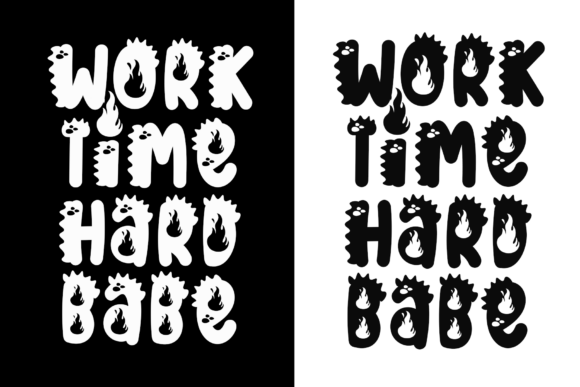
Fire Dragon Font: Unleash the Fiery Intensity in Your Designs
Are you looking for a font that can add a bold, fiery touch to your designs? Look no further than the Fire Dragon font, a blazing decorative font that captures the fierce energy of fire and fantasy. With flames integrated into each character, this font is perfect for gaming titles, event posters, or any design that needs to make a statement.
The Inspiration Behind Fire Dragon Font
The Fire Dragon font is inspired by the mythical creatures of fire and fantasy. The designers aimed to create a font that would evoke the feeling of intense heat and energy, while also being aesthetically pleasing. The result is a font that is both beautiful and bold, with flames dancing across each character.
Key Features of Fire Dragon Font
The Fire Dragon font has several key features that make it stand out from other decorative fonts:
- Flame Integrated Characters: Each character in the Fire Dragon font has flames integrated into its design, giving it a fiery and dynamic look.
- Bold and Fiery Intensity: The font is designed to be bold and eye-catching, making it perfect for designs that need to make a statement.
- Fantasy-Inspired: The font is inspired by fantasy and mythical creatures, giving it a unique and imaginative feel.
- Perfect for Gaming and Events: The Fire Dragon font is ideal for gaming titles, event posters, and any design that needs a bold, fiery touch.
Uses of Fire Dragon Font
The Fire Dragon font can be used in a variety of designs, including:
- Gaming Titles: The font is perfect for gaming titles, adding a bold and fiery touch to game logos, posters, and marketing materials.
- Event Posters: The font is ideal for event posters, such as concert posters, festival posters, or any event that needs a bold and eye-catching design.
- Logos and Branding: The Fire Dragon font can be used to create bold and memorable logos and branding materials.
- Social Media Graphics: The font can be used to create eye-catching social media graphics, such as Facebook posts, Twitter headers, or Instagram graphics.
Tips for Using Fire Dragon Font
Here are some tips for using the Fire Dragon font effectively:
- Use it Sparingly: The Fire Dragon font is bold and eye-catching, so use it sparingly to avoid overwhelming the design.
- Pair it with Neutral Fonts: Pair the Fire Dragon font with neutral fonts to create contrast and make the design more readable.
- Experiment with Colors: Experiment with different colors to find the perfect combination that complements the fiery intensity of the font.
The Fire Dragon font is a bold and fiery decorative font that captures the fierce energy of fire and fantasy. With its flame-integrated characters and fantasy-inspired design, it’s perfect for gaming titles, event posters, or any design that needs a bold, fiery touch. By using the Fire Dragon font effectively, designers can add a unique and eye-catching element to their designs.